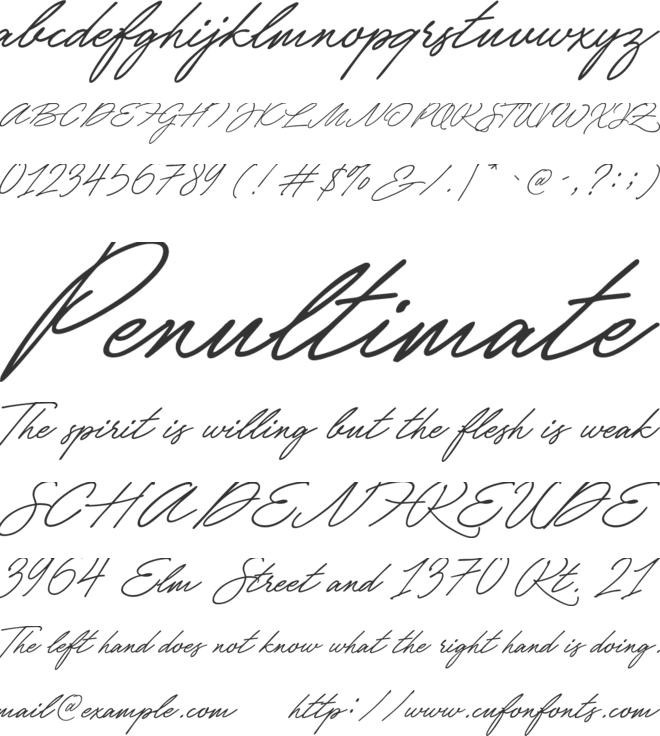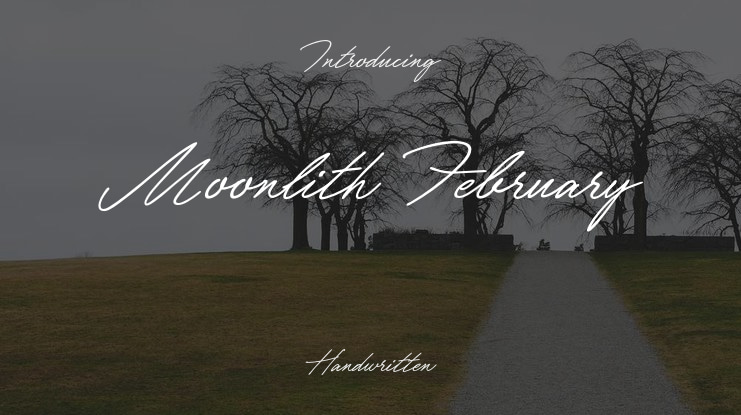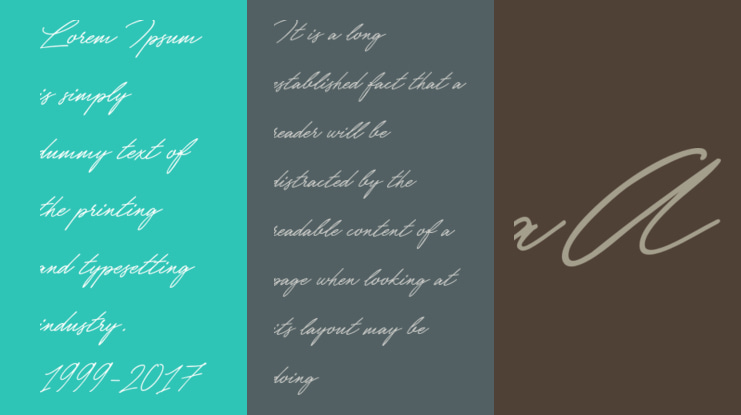
Moonlith February Script is a graceful handwritten typeface that brings
warmth and personality to any design. With smooth, flowing strokes
and a natural touch, it’s perfect for adding an elegant feel to wedding
invitations, greeting cards, social media posts, and creative branding.
While simple and easy to use, this script style still captures timeless
charm, making it a versatile free font for designers who want
sophistication with a personal touch.